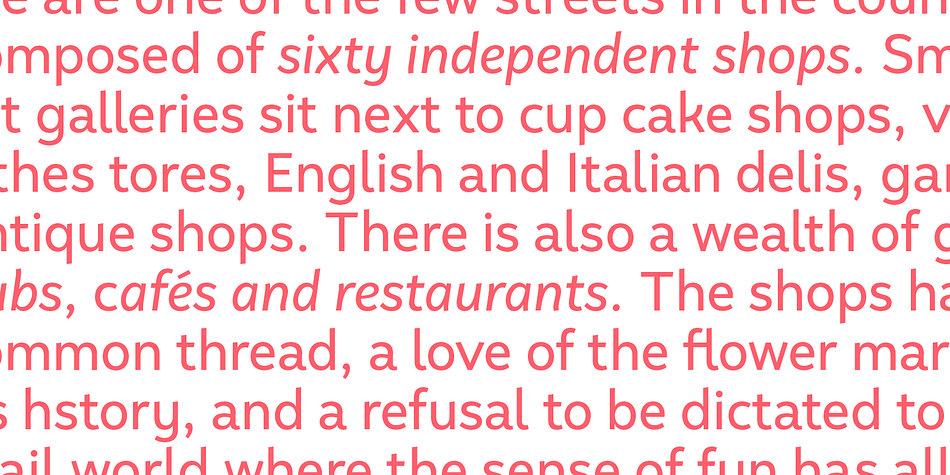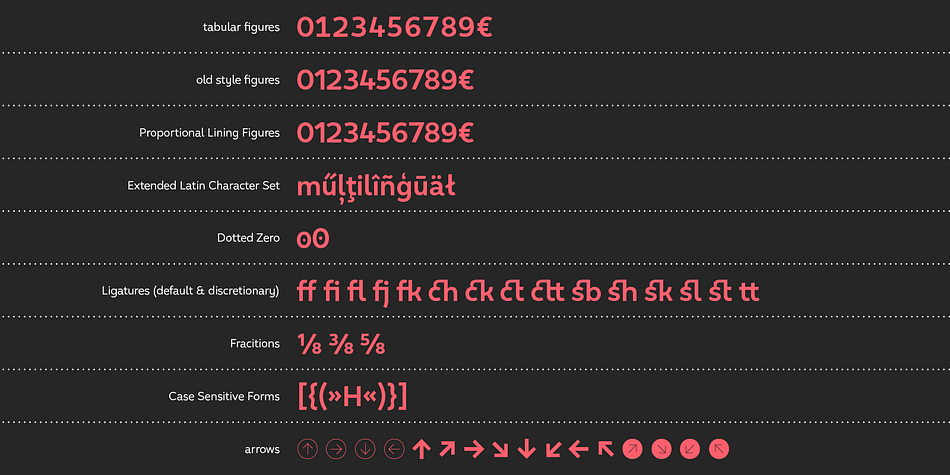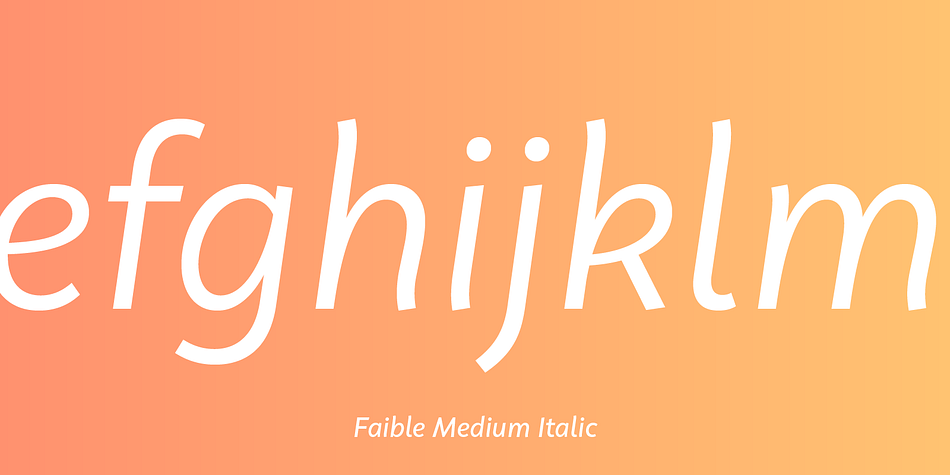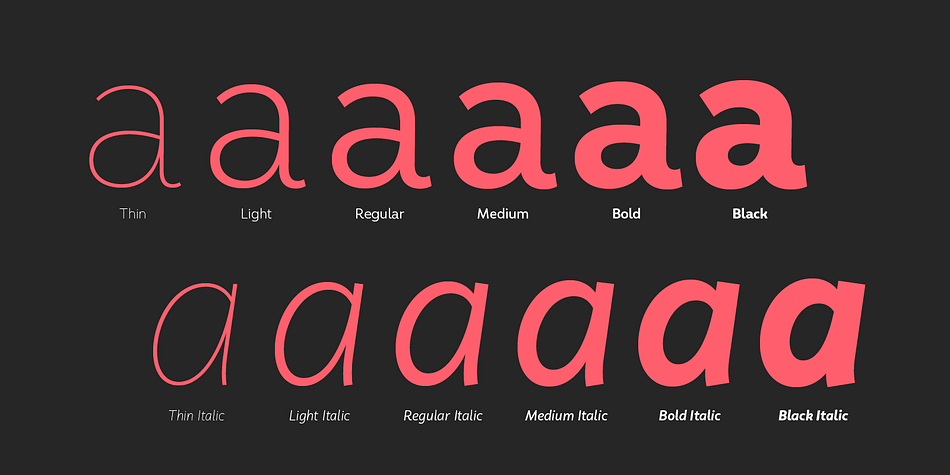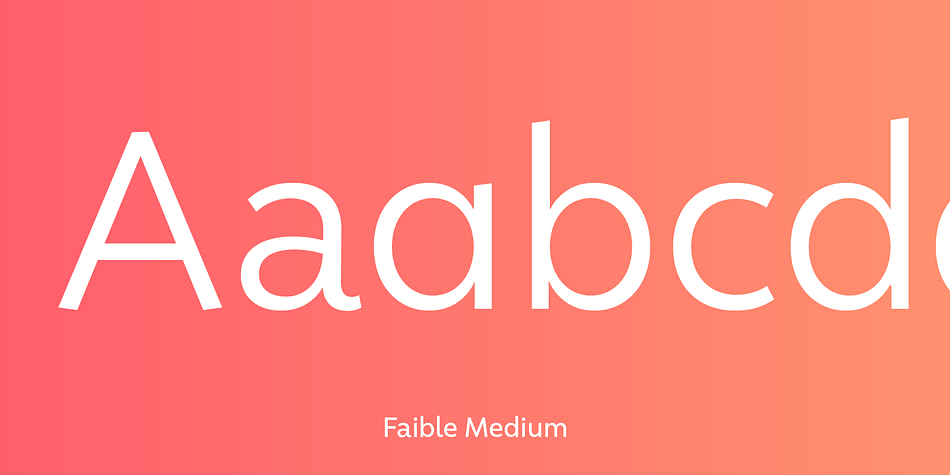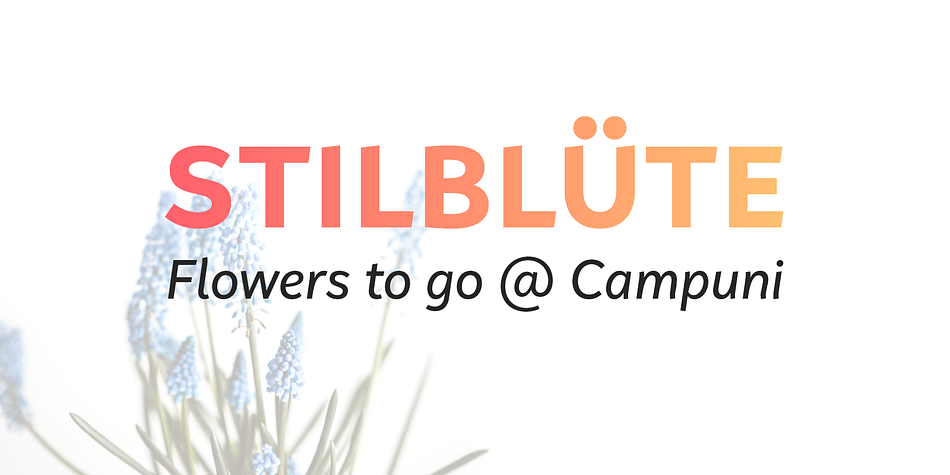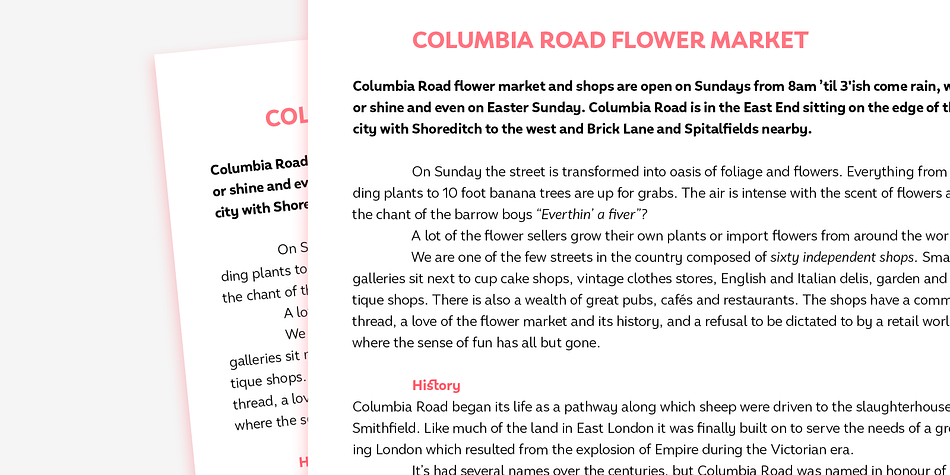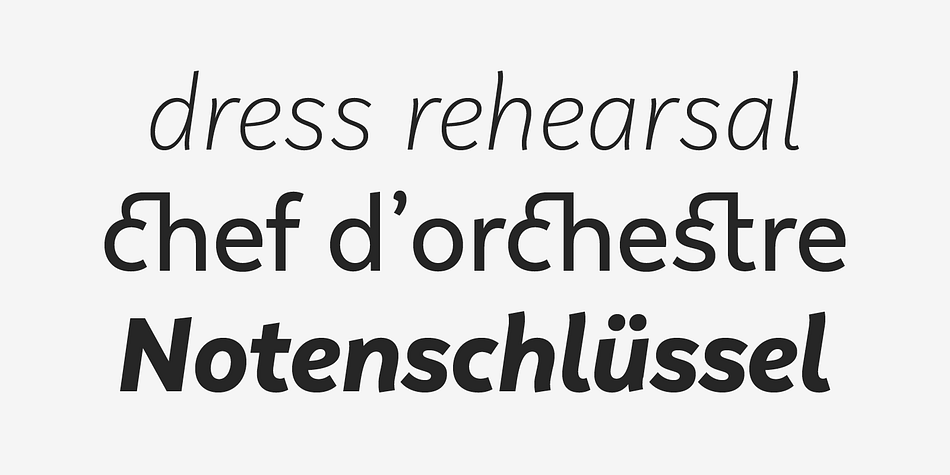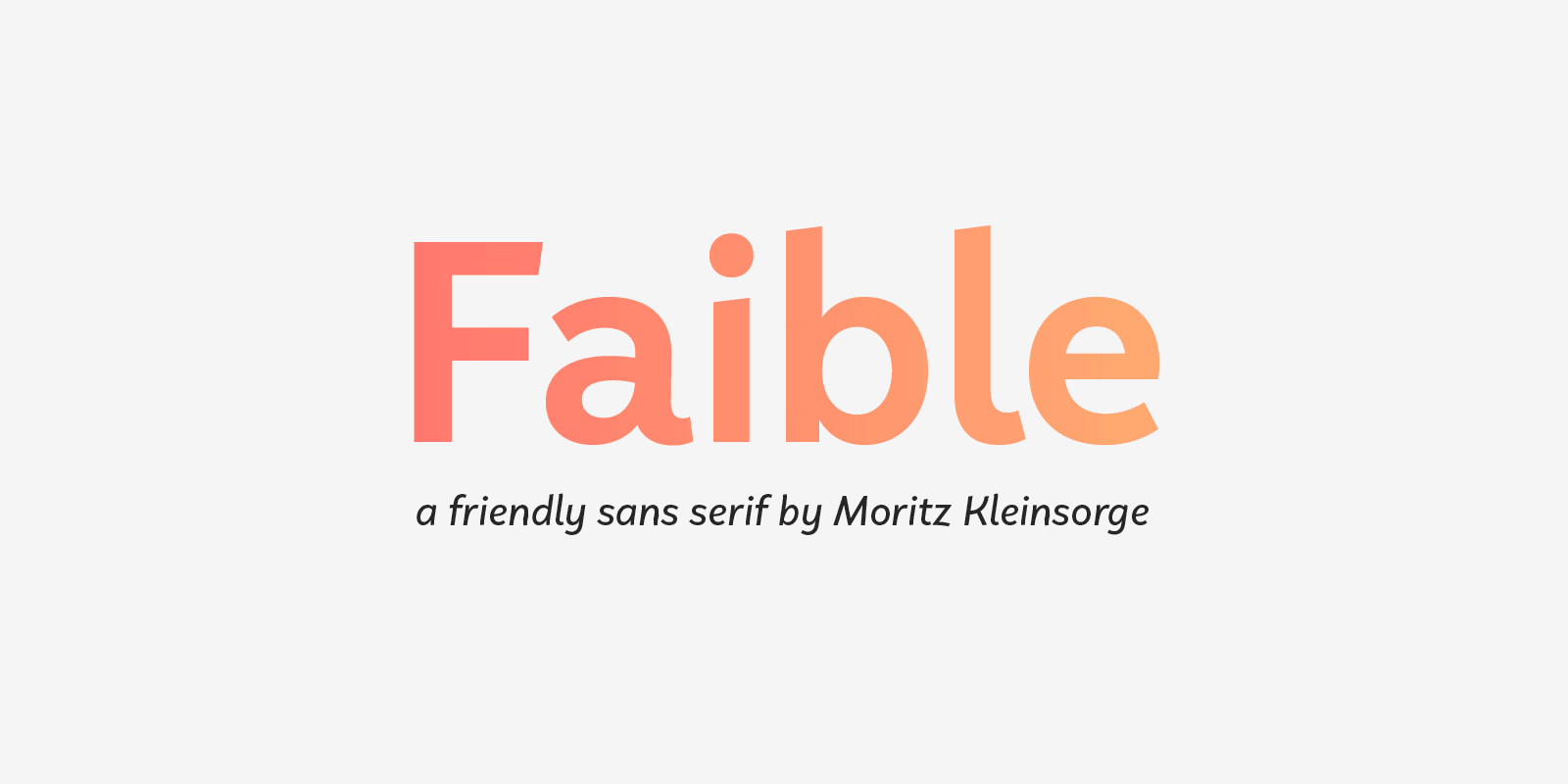
Designed by Moritz Kleinsorge, Faible is a sans serif font family. This typeface has twelve styles and was published by Moritz Kleinsorge.
Faible is everybody’s darling. You cannot not like this good-natured humanist typeface. Sure, it’s a typeface for serious work—but all serious work is better when you put a smile on your face and a whistle on your lips.
The typeface itself isn’t rooted in calligraphy, but there are quite some details in Faible that reference handwriting and add a friendly, humanist facet to its appearance. Take the bowls of B, P, and R: they are merrily bulged, like balloons about to take off. The curved leg of the R adds to this joyful mood. Faible’s italics are rendered playfully, too: they’re not merely sloped Roman styles. Rather, they were designed independently with an internal dynamic that sets them apart on the page.
With its trademark glyphs, the swooshin’ K and k, and its friendly details, Faible will radiate optimism in display sizes, titles, and headlines. That makes it a great choice for book covers, posters, editorial design, branding, corporate design, advertising, and packaging. Nontheless, it’s carefully spaced and equipped with plenty OpenType features—a reliable tool for short texts and body copy, too.
The font family consists of six weights (ranging from Thin to Black), each with its corresponding italic style. Faible’s glyph set contains more than 600 characters, allowing you to enhance your layouts with ligatures, different sets of figures, case sensitive forms, arrows, and other necessities for the ambitious typographer.
Faible is the typeface that puts “fun” back into “functional”.